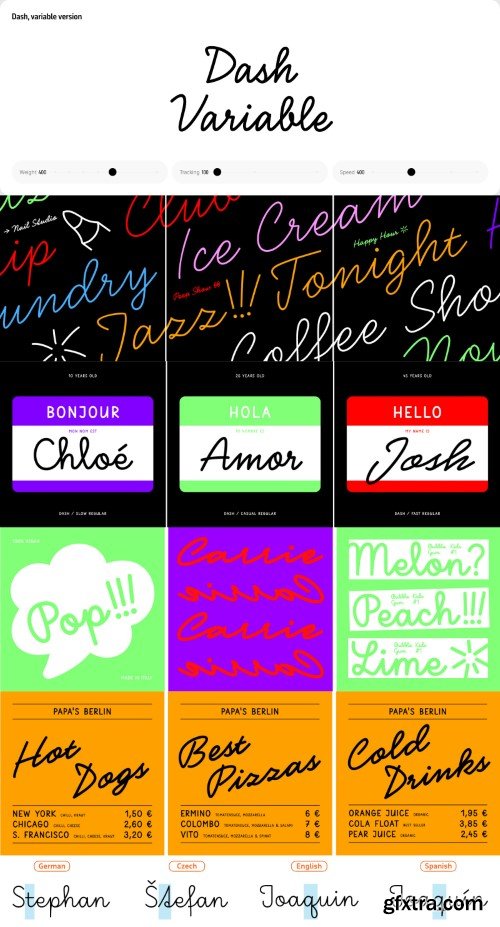
"Dash" is an innovative typeface developed by Typotheque, designed to convey varying speeds and expressions through its unique letterforms. Created by Peter Bilak and Nikola Djurek, Dash offers designers a versatile and dynamic tool for adding movement and personality to their typographic compositions. At the heart of Dash's design concept is the idea of speed, with each letterform carefully crafted to evoke a sense of motion and energy. The typeface features a range of stylistic variations, from swift and fluid strokes to bold and decisive forms, allowing designers to experiment with different speeds and expressions in their designs. One of the most striking aspects of Dash is its ability to adapt to different contexts and convey a wide range of emotions. Whether used for branding, editorial design, or digital interfaces, Dash brings a sense of dynamism and vitality to any project. In addition to its aesthetic appeal, Dash also offers practical benefits for designers. The typeface is available in multiple weights and styles, making it suitable for a variety of design applications. Its clean lines and legible letterforms ensure readability across different mediums and sizes, while its distinct personality adds visual interest and depth to typographic compositions. Overall, Dash is a versatile and expressive typeface that offers designers endless possibilities for creative expression. With its unique design concept and wide range of applications, Dash is sure to inspire designers to push the boundaries of typography and create memorable and impactful designs.